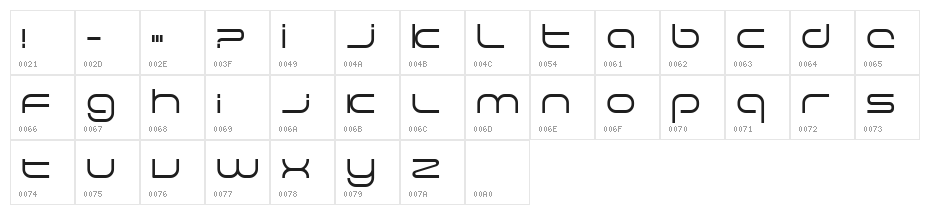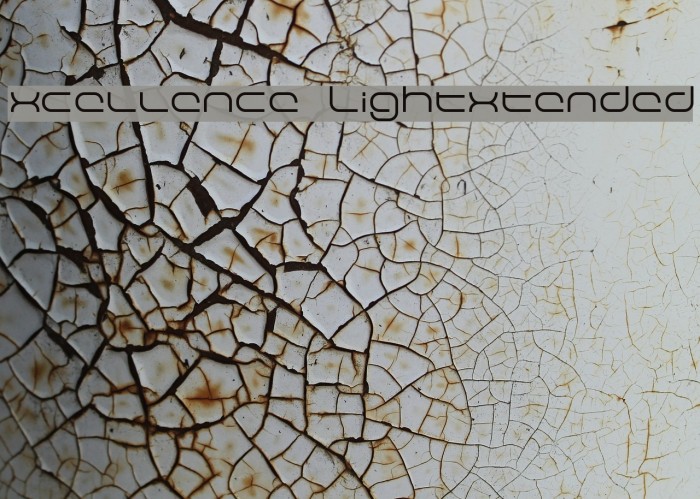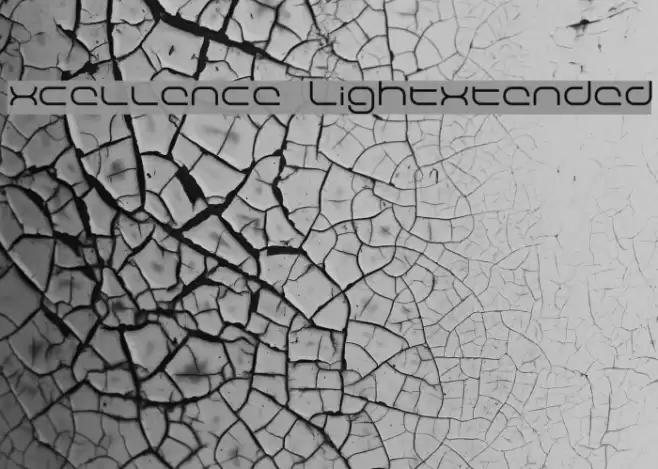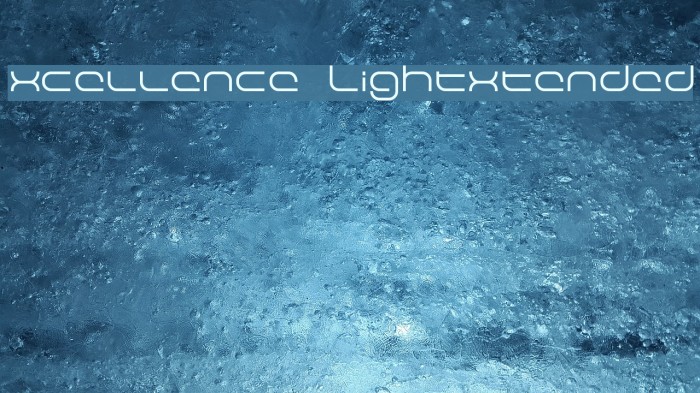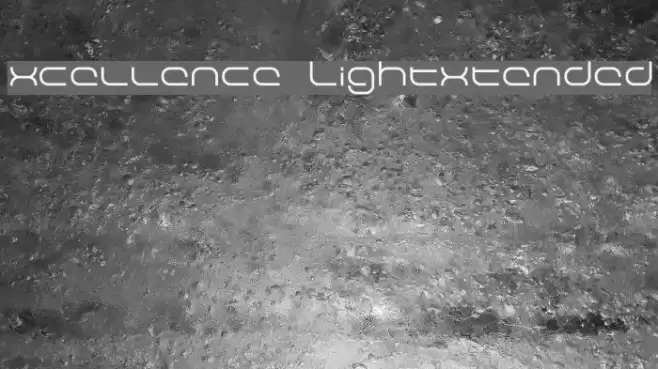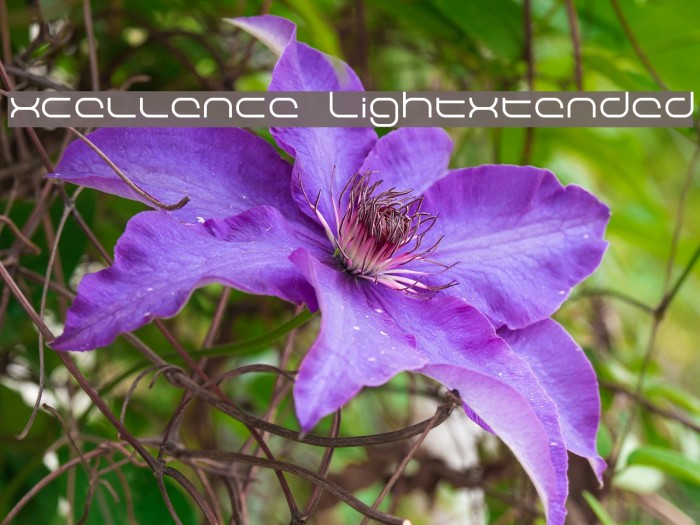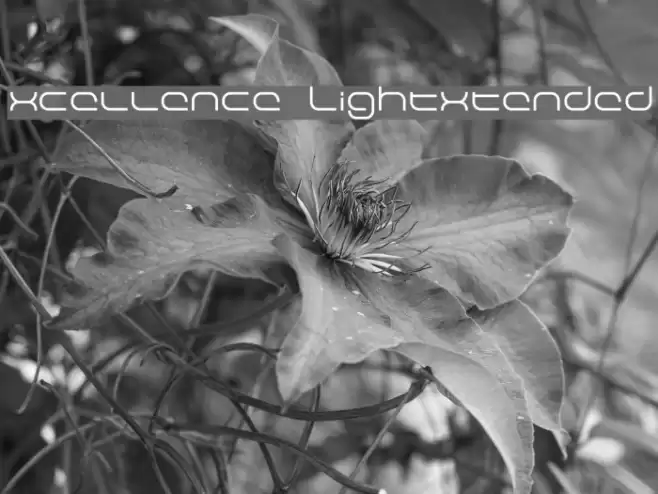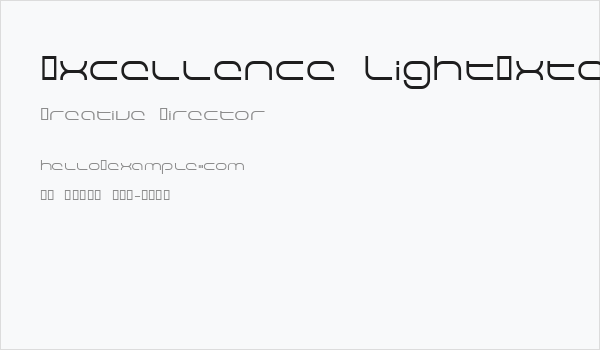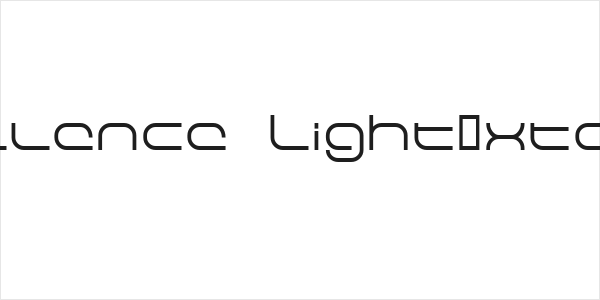
Excellence LightExtended Font
Excellence LightExtended Description
This font features a sleek, modern design with a geometric and futuristic aesthetic. The characters are elongated and have a distinct linear quality, giving them a unique and sophisticated appearance. The uppercase letters are bold and striking, while the lowercase letters maintain a consistent style with a slightly softer edge. The numerals are clear and easy to read, matching the overall design of the font. Special characters are included, maintaining the same geometric style, making this font versatile for various applications.
| Use Case | Logos, Headlines, Digital Interfaces |
| Proposed Projects | Ideal for technology branding, modern advertising, futuristic posters, and digital interfaces. |